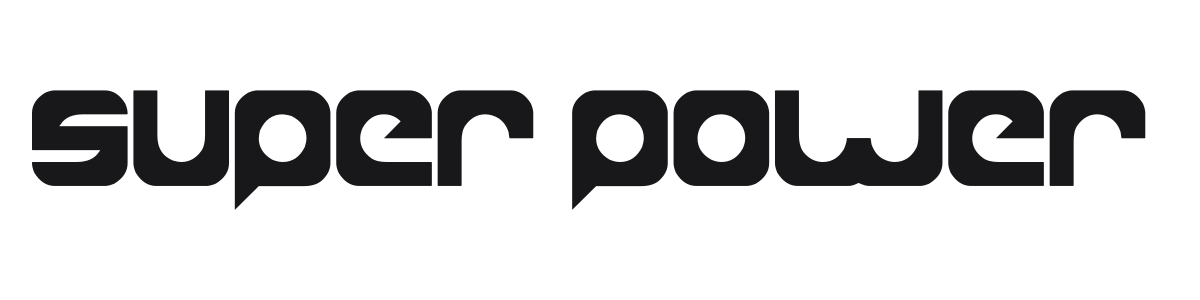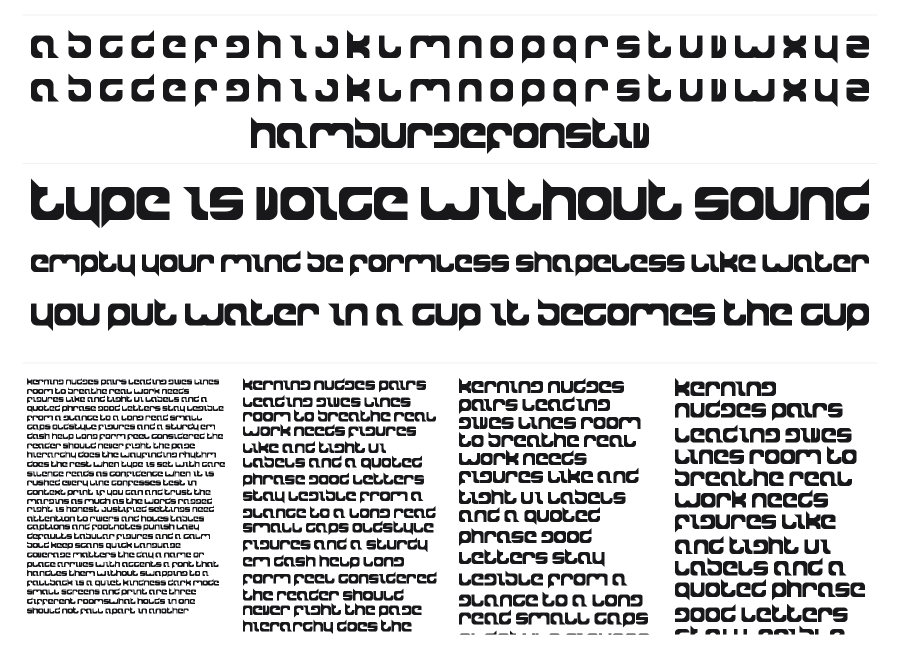
Super Power
Super Power is a heavy geometric display font built from interlocking circular and rectangular modules with deep concave cutouts that give each character a mechanical, almost industrial edge. The uniform thick strokes and near-zero stroke contrast create a dense, commanding presence at large sizes. It sits comfortably in the world of gaming titles, superhero branding, and sci-fi headline work.